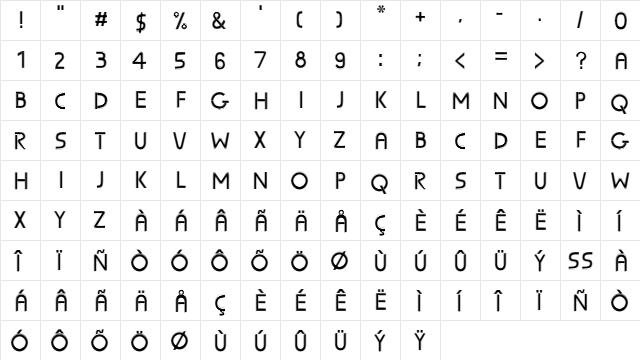
Sunscreen Pentaline
Design Context for Sunscreen Typeface
Sunscreen offers clean, dependable letterforms without strong stylistic allegiance, making it a practical choice for designers who need flexibility.
Pro Tip: Use Sunscreen in both headline and body roles to test its range before committing to a single application.